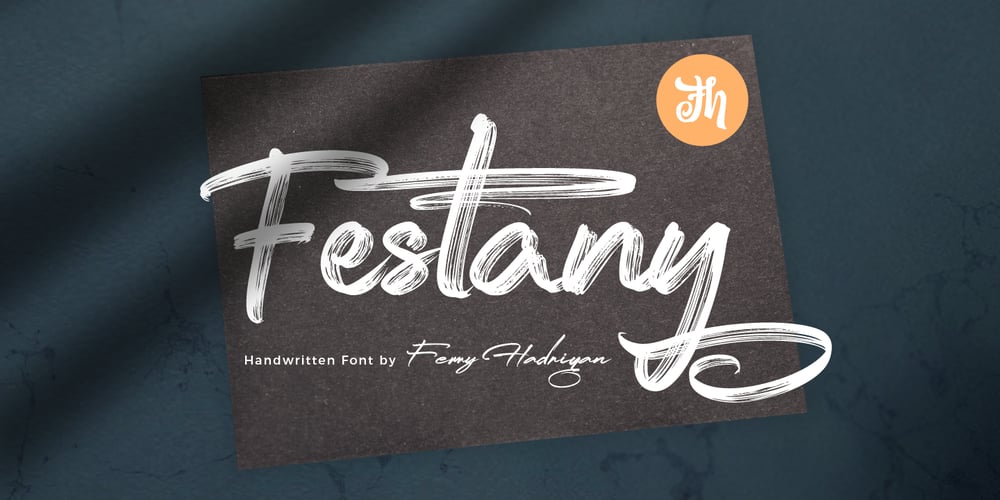
Festany Font Family was designed by Ferry Hadriyan and published by FHFont. Festany contains 1 styles and family package options. Festany is script font with handlettering brush style, this is handmade ink, and with dry ink for finished the texture font. Suitable for design, element design, wedding, event, t-shirt, logo, badges, sticker, and awesome work.